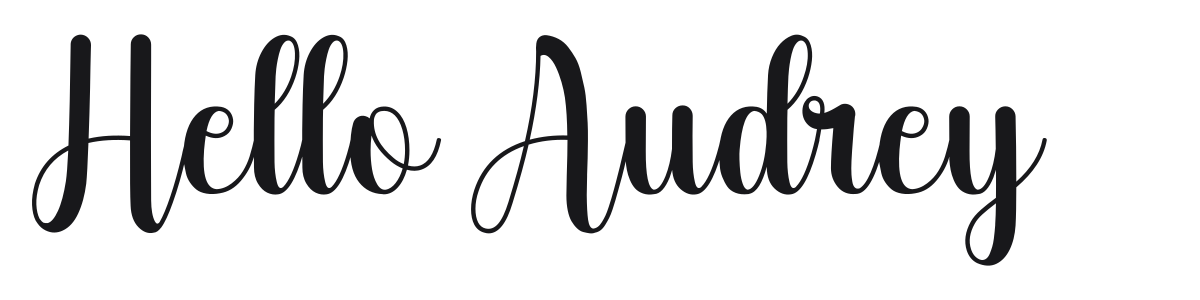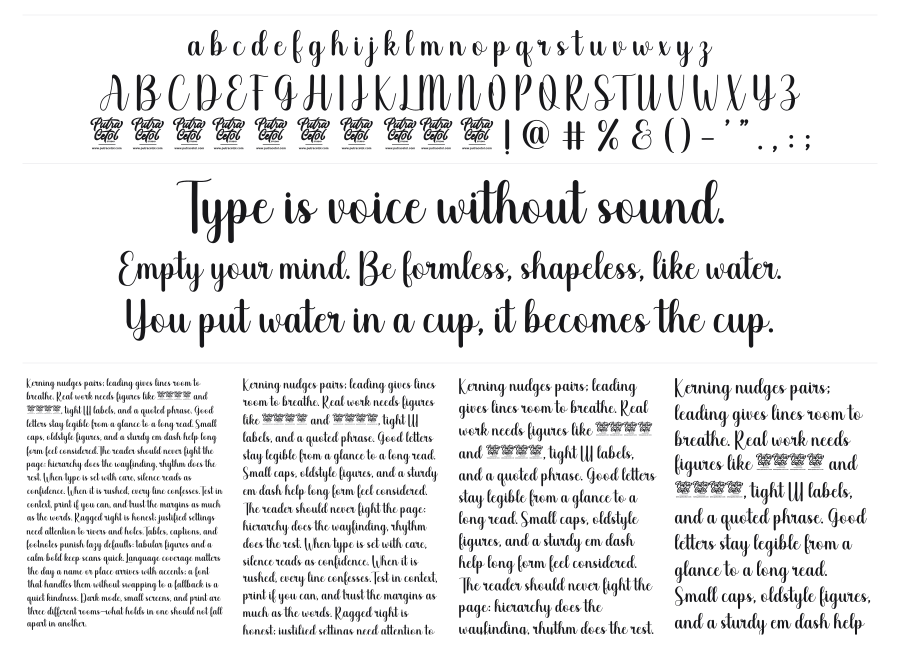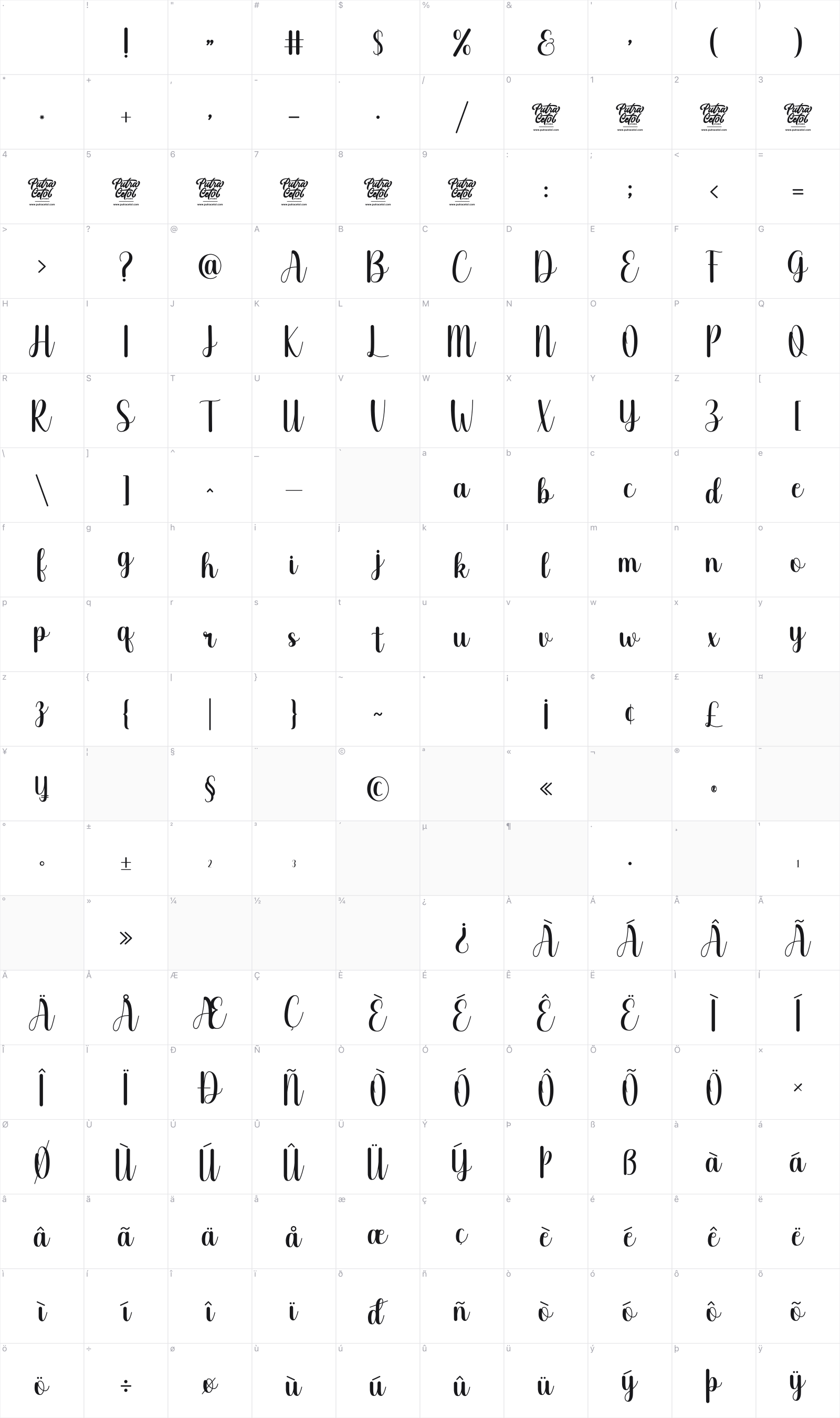
Hello Audrey
Hello Audrey is a flowing connected script from PutraCetol Studio with confident calligraphic strokes and generously looped ascenders. The moderate contrast between thick and thin gives it an energetic, handwritten rhythm that feels both polished and personal. It sits comfortably in wedding stationery, packaging, and any branding that calls for warmth and charm.